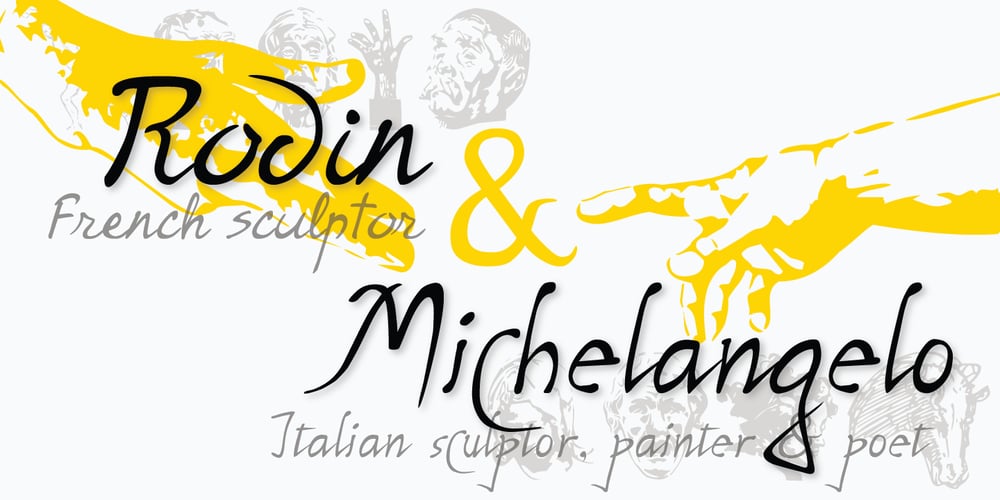
P22 Rodin Font Family was designed by Richard Kegler, Denis Kegler and published by P22 Type Foundry. P22 Rodin contains 2 styles and family package options. The great French sculptor August Rodin was strongly inspired by the Italian sculptor, painter and poet Michelangelo. Created in association with the Philadelphia Museum of Art, this font set is a tribute to the achievements of both extraordinary artists.